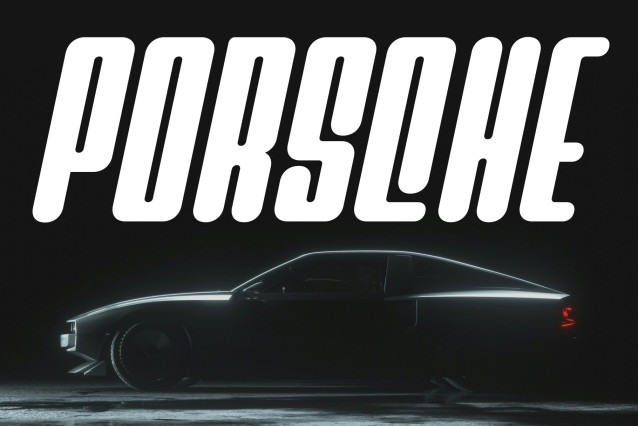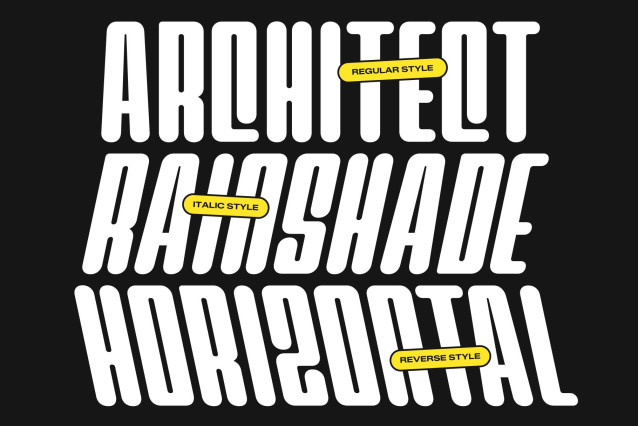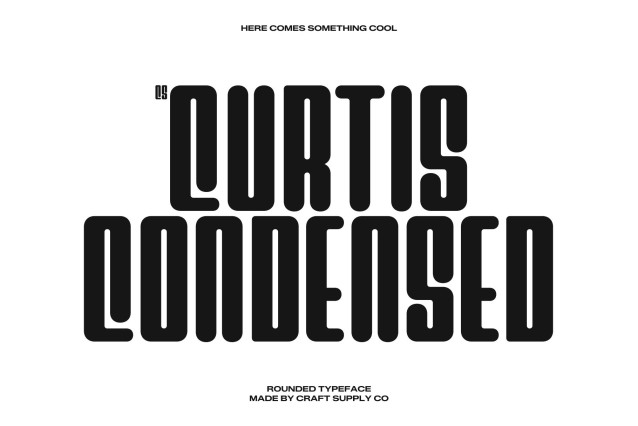
CS Curtis – Condensed Font
CS Curtis – Condensed Sans Serif with Rounded Strength
Condensed Sans Serif with Modern Efficiency
This is a compact and modern condensed sans serif font designed to create maximum impact in minimal space. Its narrow proportions allow more content to fit seamlessly into tight layouts while maintaining a clear and confident presence. This efficient structure makes it a strong choice for bold headlines and space-conscious design projects.
Rounded Style with Friendly Character
What sets this font apart is its soft rounded style, which introduces warmth and approachability to the condensed form. The smooth curves balance the narrow structure, preventing the font from feeling rigid or harsh. This combination results in a typeface that feels both professional and inviting.
Powerful Impact with Clear Readability
Despite its compact proportions, this font preserves excellent readability across various sizes. The careful spacing and well-balanced letterforms ensure clarity while still delivering a bold and striking appearance that grabs attention instantly.